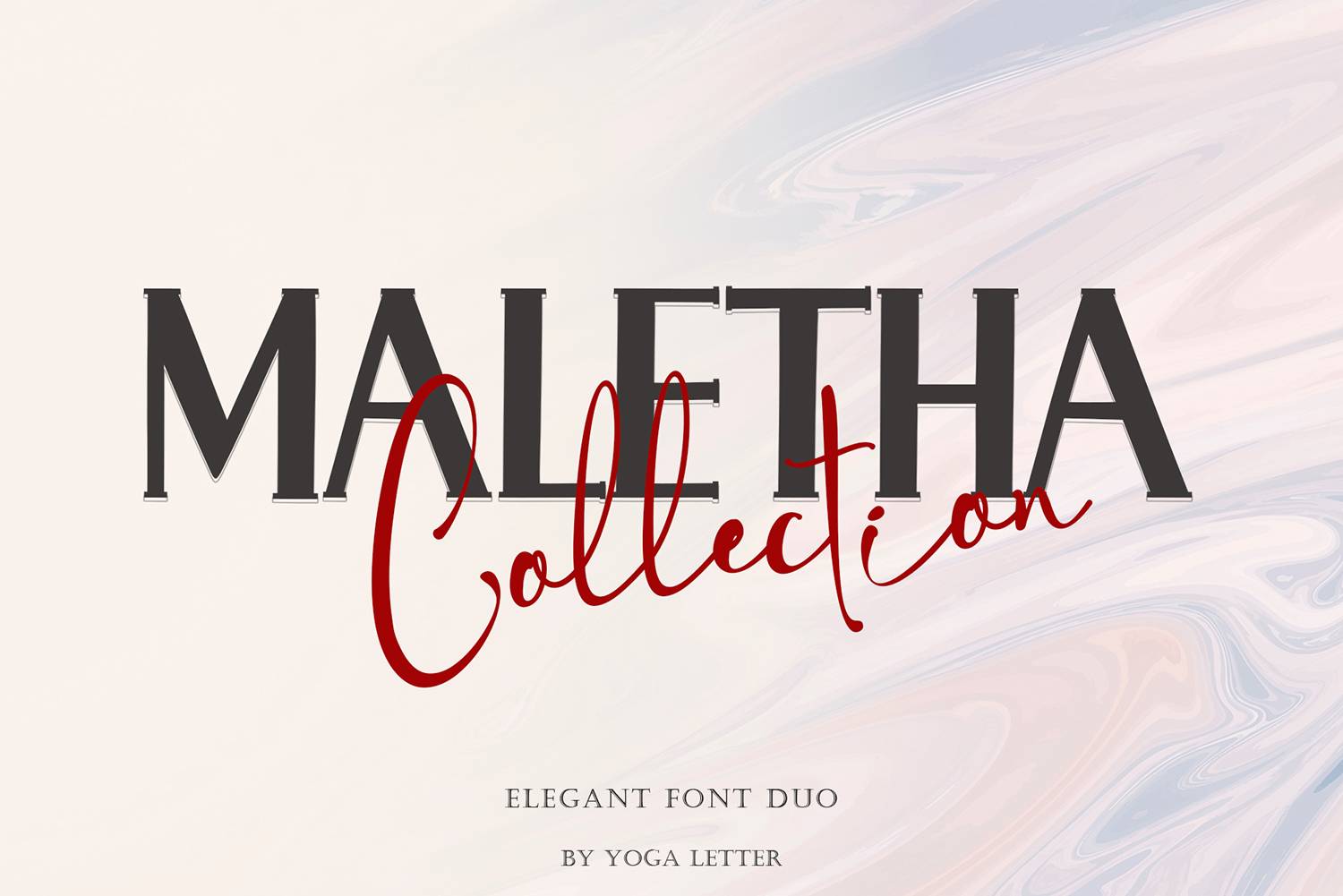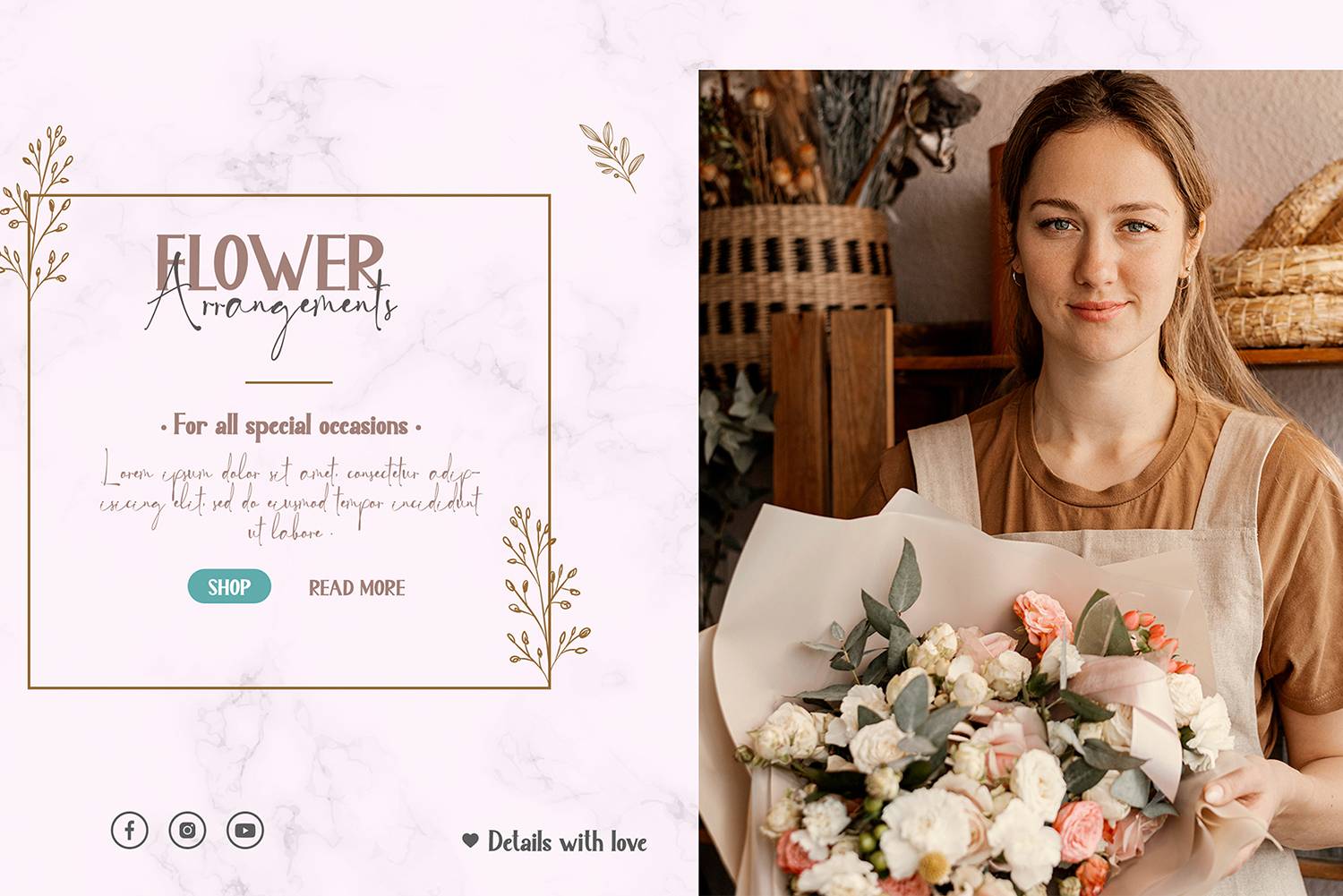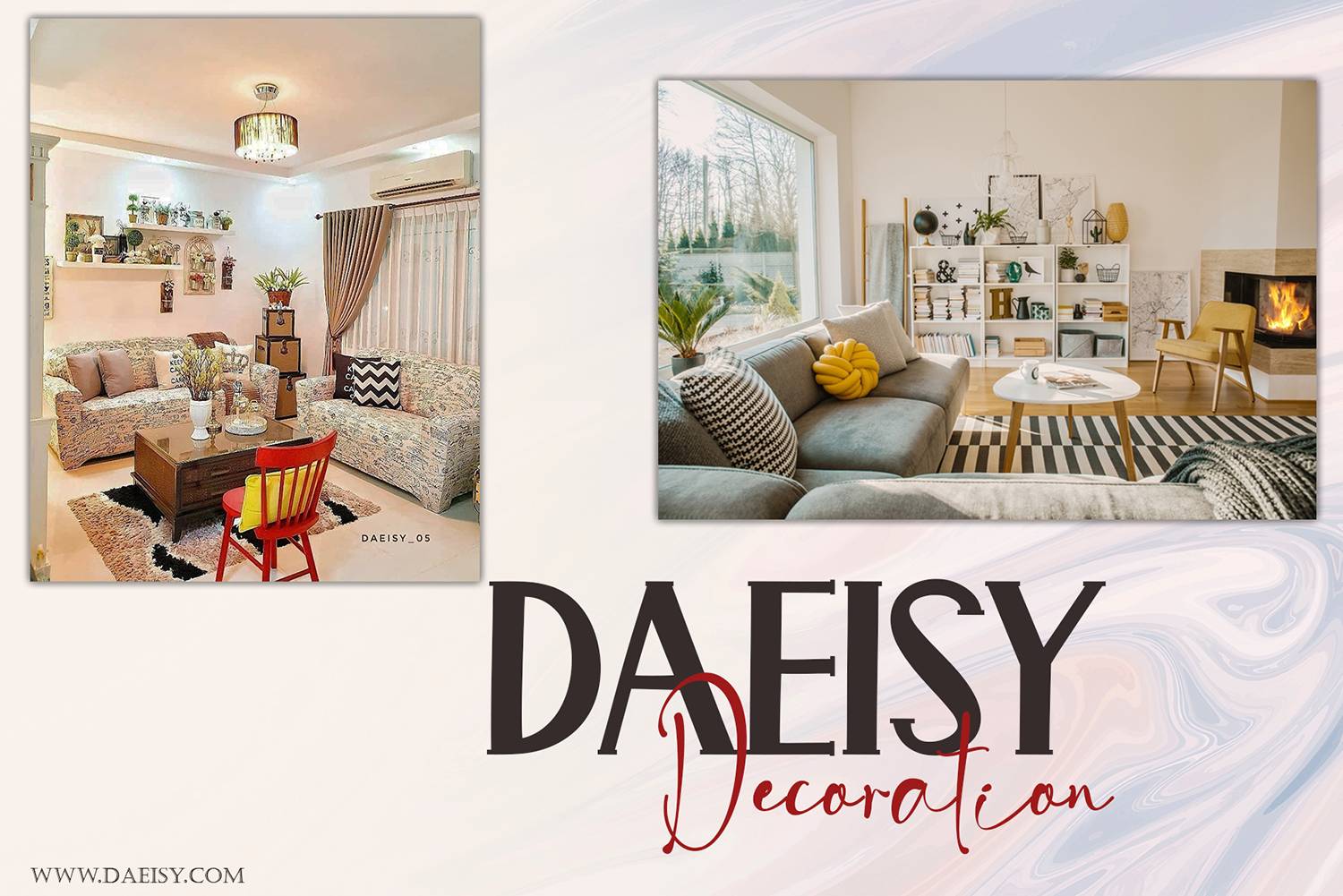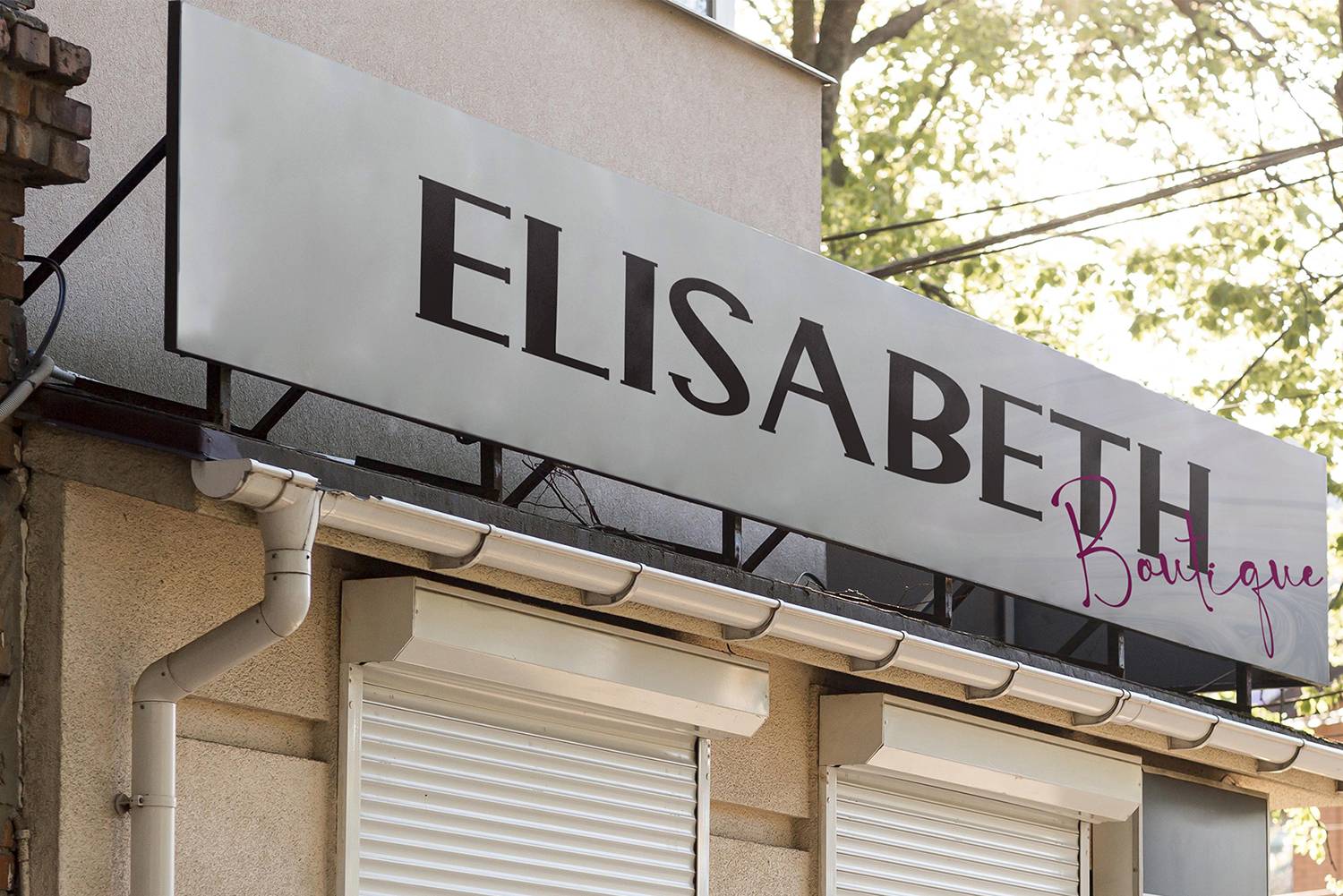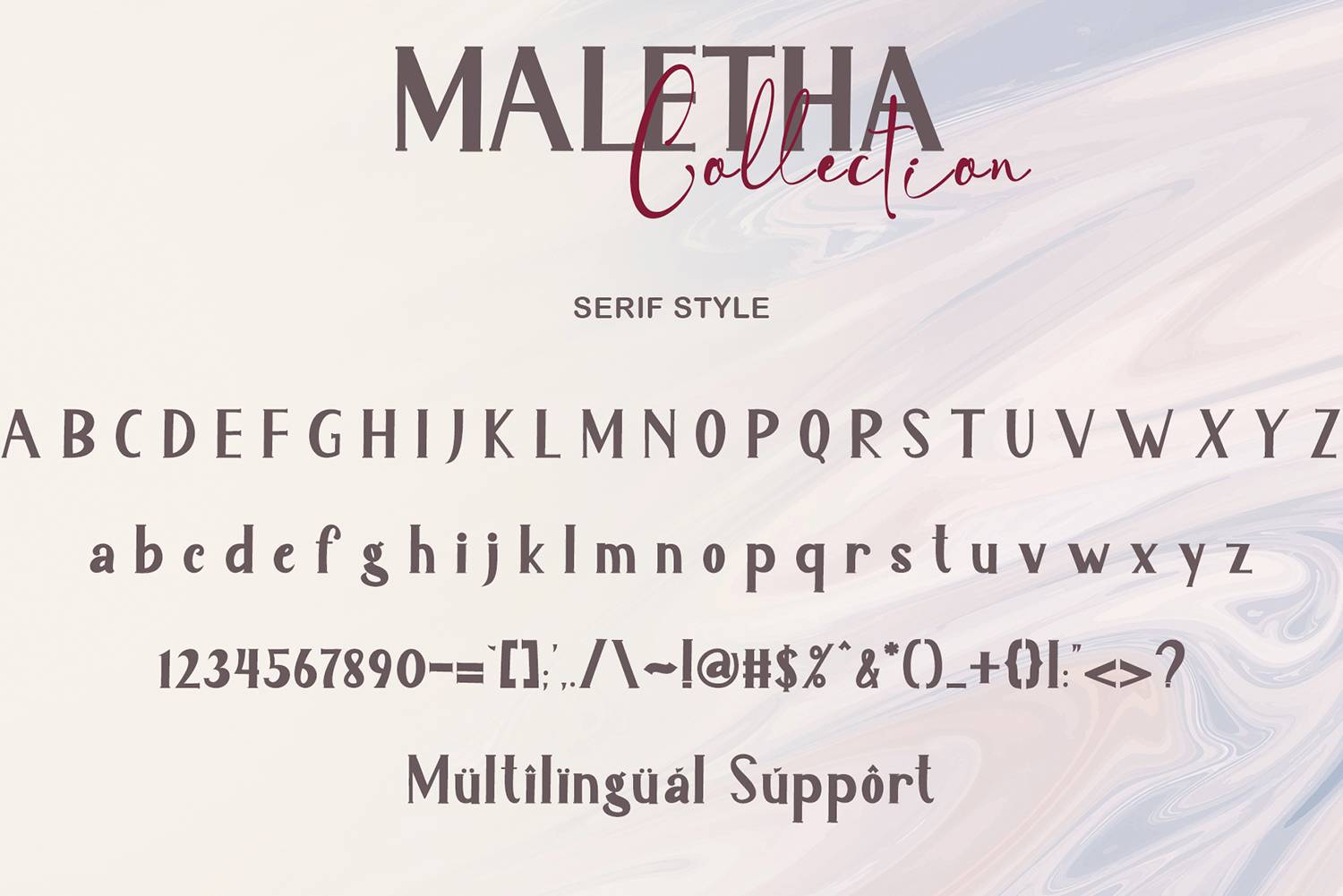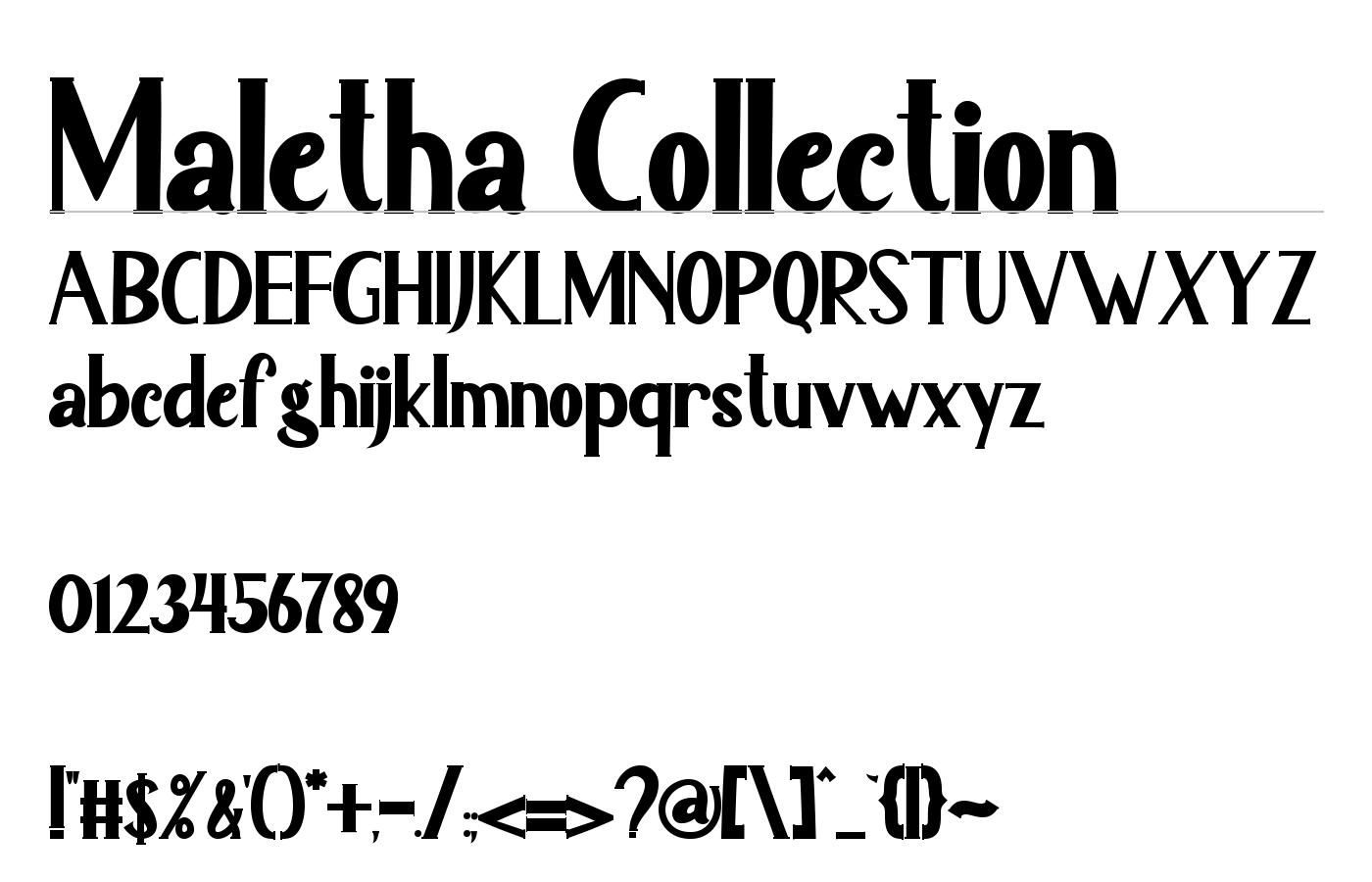
Maletha Collection is a distinctive serif font that combines tall, elegant letterforms with playful, uneven stroke contrasts, lending it a unique and artistic personality. Its sharp serifs and varied letter shapes create a vintage yet whimsical feel, making it ideal for creative branding, editorial headlines, and packaging designs seeking a blend of sophistication and character. This font stands out where a touch of charm and individuality is desired without sacrificing readability.
Maletha Collection Font
About Maletha Collection Font
| Font family | Maletha Collection Font |
| Release date | 2021-09-22 |
| Designer | Yoga Letter 2021 (Isroni Yoga Prasetya) |